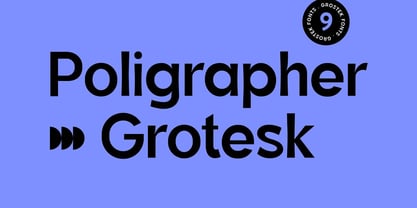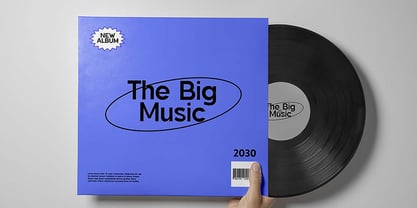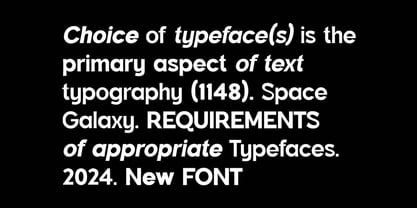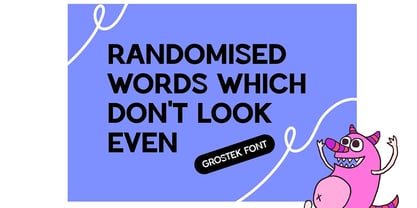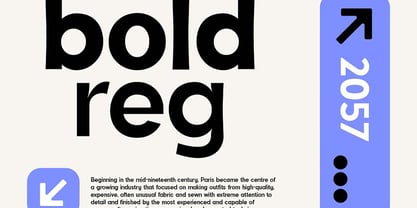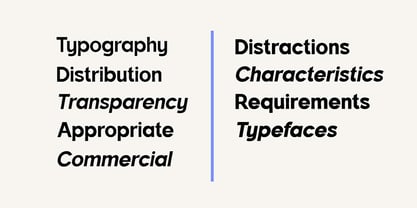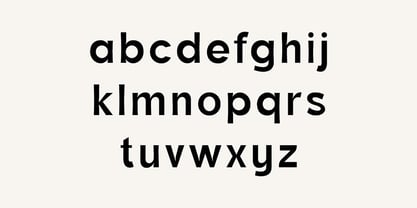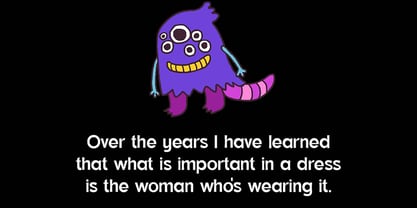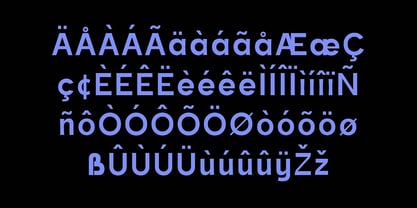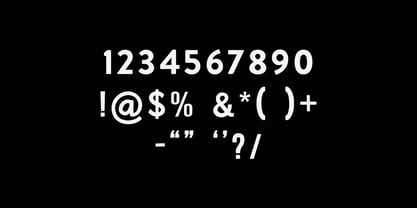
Poligrapher grotesk
by UICreative
The Poligrapher grotesk Font Family was designed by Hero and published by UICreative. Poligrapher grotesk contains 9 styles and family package options.
Introducing our new product the name is Poligrapher Grotesk Display Font Family. Poligrapher Grotesk Display Font Family that feels beautiful classy, elegant, and modern. This font is ideally suited for a wide variety of projects, such as signature, stationery, logo, wedding, typography quotes, magazine or book covers, website headers, clothing, branding, packaging design, and more. Also, fashion-related branding or editorial design displays both masculine and feminine qualities.